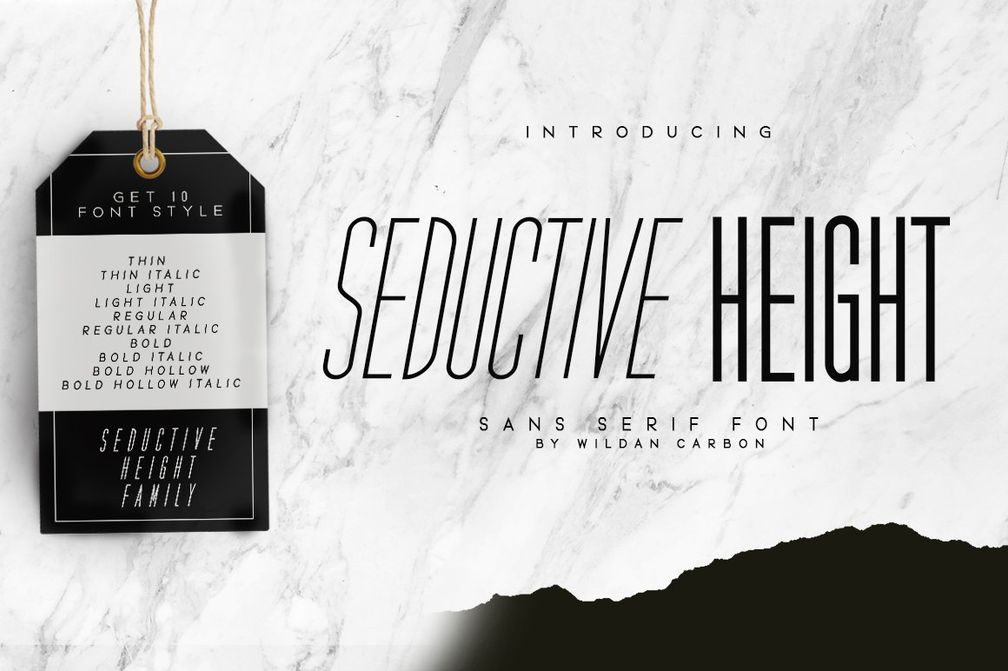
Seductive Height
Seductive Height is a tall, thin and simple sans serif font. It can easily be matched to an incredibly large set of projects, so add it to your creative ideas and notice how it makes them stand out!